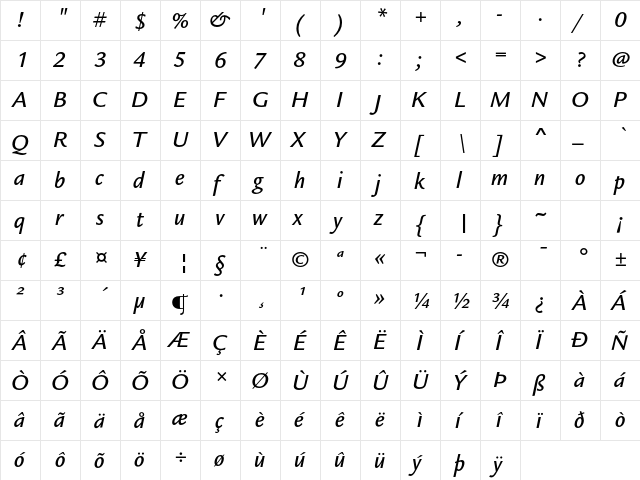
Legacy Sans ITC Std Medium Italic Font Preview
Legacy Sans ITC Std Medium Italic
| Designer | Ronald Arnholm |
Design Context for Legacy Sans ITC Std Typeface
Legacy Sans ITC Std takes a measured approach to typography — its balanced proportions and neutral character make it a reliable workhorse for both digital and print work. Its italic angle brings a sense of urgency and motion to the letterforms.
Pro Tip: Use Legacy Sans ITC Std for emphasis, pull quotes, and subheadings where its slanted energy can add rhythm to the layout.